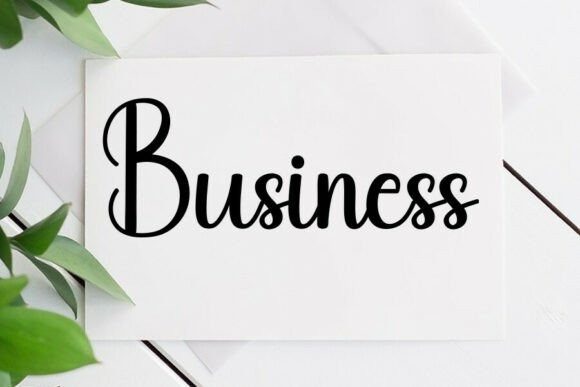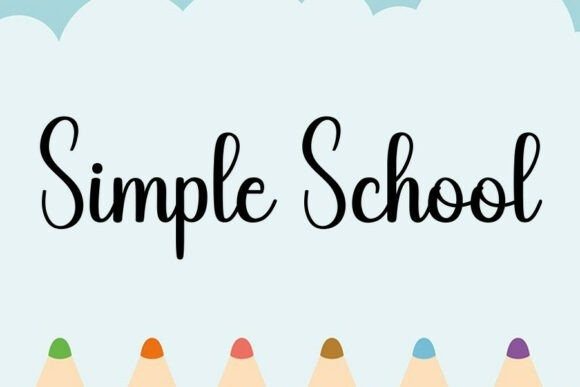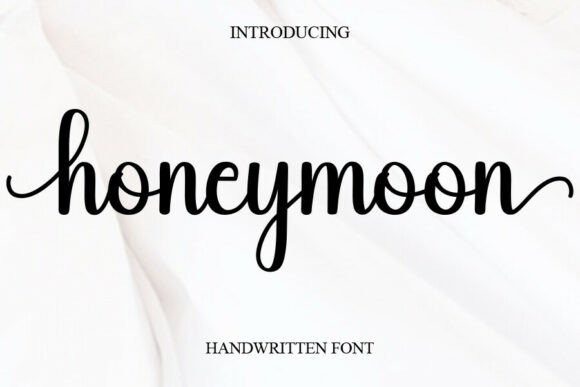
Honeymoon Script Typeface
Honeymoon Script Typeface is a sweet and cursive handwritten font. This gentle font will look gorgeous on a variety of design ideas. It will add a joyful and romantic touch to each of your projects! Perfectly fit for branding, logo, wedding things, greeting cards, fashion, lookbook, marketing promotion, and any time you want your design to look fancy and elegant but still casual.